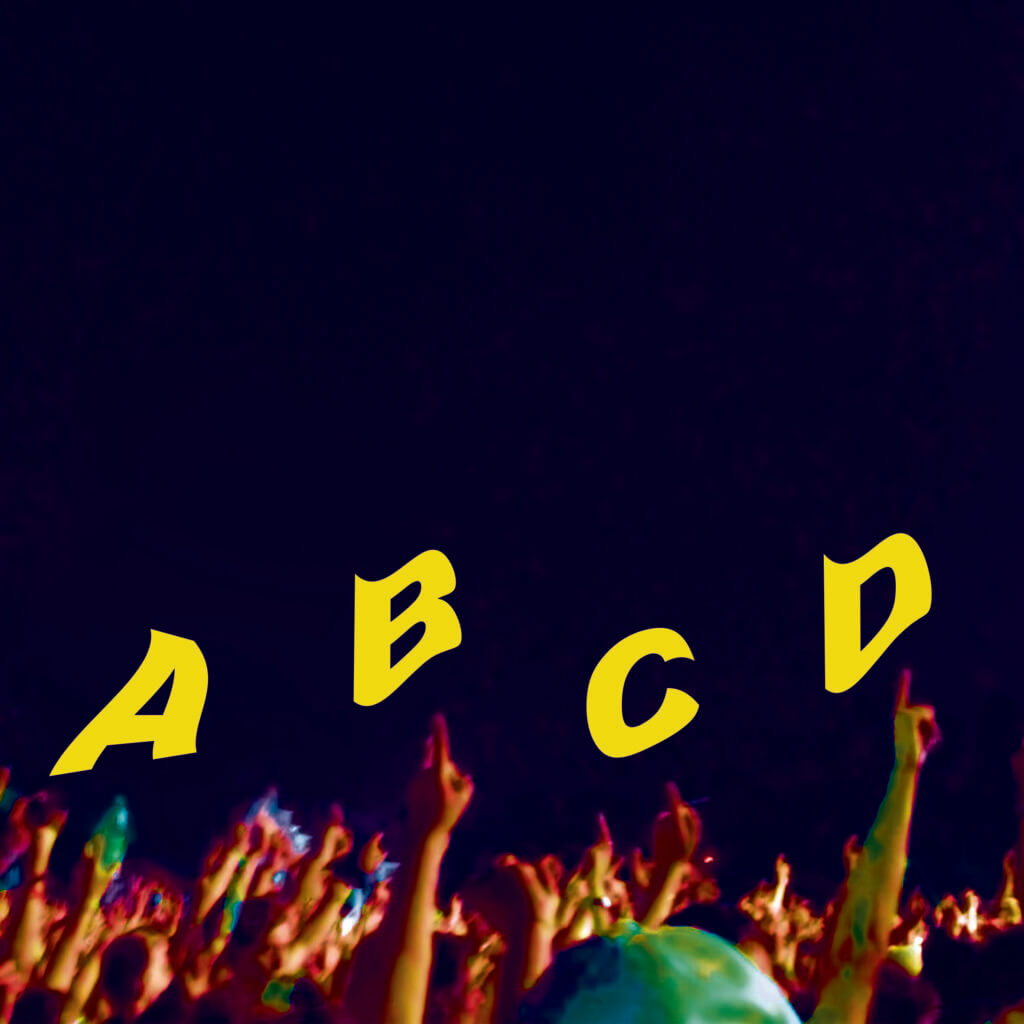
Postcard Idea 1..
This was my favourite design and the one which I developed the furthest out of my three ideas. The aspect of this design which I developed the most was the type. Following on from my Podcast task (as seen in featured image) I wanted to continue to work with warping the type. I liked how this worked along side the image as I felt like it gave an impression of the crowd moving the letters around. I wanted to emphasise this sense of movement further in my postcard designs so to do this I developed different ways of enhancing the image and the format of the warped type. For this particular idea I decided to duplicate the picture, this is something I also did in my second idea but the way I utilised this differed. For idea 1 I flipped the image and cropped it (as pictured above) to create the impression of one mirrored image that frames the text. I liked the sense of balance this gave the postcard and how it emphasises the idea of the type almost being pushed around by the people in the image.
Postcard Idea 2..
Similar to Idea 1, I also duplicated the image in this postcard to enhance the sense of movement. This time I experimented with transparency, to create a blurred effect I lowered the transparency of the duplicated image and shifted it slightly in position (pictured above). I feel like this created a sense of movement in a different way to Idea 1. However I think this idea would off worked better with to similar images rather than two identical images to give the impression that the movement is changing as this would be more realistic. In order to develop my ideas I wanted to play around with the effectiveness of the warped text. Therefore in this design I warped some of the words but not all. I actually really like how this gives a focus on the most important aspect of the postcard which is the topic of type. I think this creates a sense of hierarchy within the postcard allowing it to inform the reader efficiently.
Postcard idea 3..
For my third idea, I actually wanted to explore using type that wasn’t warped. I wanted to see what effect this had visually compared to the warped type that I had used for the last two ideas. I didn’t want to alter the background image too much for this idea so I simply flipped it up side down. I still think this idea is effective but it did help me to realise that the warped text did work well in creating unity between the image and the text. In all my designs I made the word ‘with’ significantly smaller than the other two words as I wanted the focus to be on ‘talking’ and ‘type’ as these are the focus of the podcast/postcards.
An issue that I encountered when completing this task in indesign is that indesign does not have appropriate tools to allow you to warp text. I got the idea to do this to the text through exploring photoshop in the previous task but when It came to working in indesign I realised that achieving these same effects within this software wouldn’t be possible. In order to solve this issue I searched for information on how to best transport images from photoshop into indesign. I googled this and was able to find out that only certain files can be transported from photoshop to indesign. I created my text in photoshop and then imported it as a psd into indesign. This worked okay but i has to do one word at a time so that I could figure our where to place the different text layers once they were actually in indesign. I plan on carrying out more research on how to do this and on how to use the softwares together. I know that this will also become an issue when I need to import from illustrator to indesign in future so I found a tutorial to refer back to ( https://www.youtube.com/watch?v=FF9-l07KmDY ). I found that for this task, there was not much I actually wanted to manipulate in terms of image editing that I would need additional resources for. I felt as though my image was already prepared and edited in photoshop from first podcast task, to do this I had used a tutorial I found on YouTube ( https://www.youtube.com/watch?v=oOTxsRTjkNM&t=741s ). This tutorial really helped me to learn different ways of removing parts of an image in photoshop and helped me to achieve a background image for my podcast and postcards that I was happy with. I think this Is something I could definitely do with referring back to as I did find it quite complex the first time round, but it was good to experiment with different tools I had not used before.
For this task I wouldn’t say I was inspired by any resources in particular it was more a case of exploring new tools within software and just experimenting until I got something that I liked and thought was effective in advertising a podcast. I wanted to represent sound in a still image so my goal was to create a suggestion of movement within the design. I searched through my own photography to generate initial ideas and found the image of the crowd. I thought this would be appropriate as a crowd of people with their hands in their air represents people listening to music at a concert/ festival. People obviously listen to a concert differently to how they would listen to a podcast but I still think this is a close enough associated. After importing the image into photoshop I thought about how the crowd could almost push the text around the page and then I developed this further by warping the text itself. I feel like this almost gives off a metaphorical meaning in how we manipulate type for design purposes. On reflection I should off taken compiled more sources of inspiration for my work however I feel the process became more of an experimentation of tools than ideas which I think was beneficial in its own way. I think it would off been beneficial for me to have looked at examples of how others incorporate warped text into their designs and gain inspiration from this but overall I felt happy with my final outcome despite a lack of research/inspiration. I did have a look at a page provided to us for inspiration (https://helpx.adobe.com/uk/photoshop/how-to/composite-multiple-images-create-collage.html?playlist=/services/playlist.helpx/products:SG_PHOTOSHOP_1_1/learn-path:key-techniques/playlist:topic/set-header:get-inspired/en_GB.json&ref=helpx.adobe.com), ‘How Molly Scannell created Taken’, which I did find really intriguing but I think I found this at a point in my design process where I had already developed my ideas in the first task and didn’t know how I would incorporate aspects of this kind of style into my work. The techniques of image manipulation that this designer uses are definitely something I plan to explore and gain inspiration from in future work.